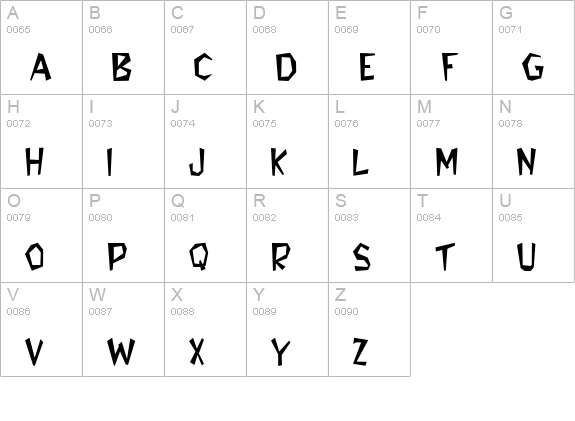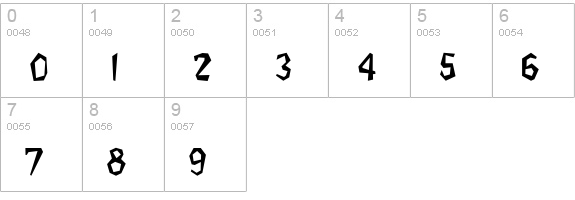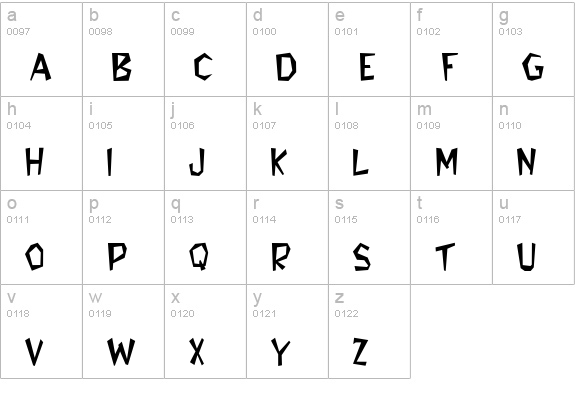
Flintstone Regular Font Details
Flintstone Regular is the standard, neutral variant in the Flintstone typeface family \xE2\x80\x94 well suited to general body text, paragraphs, and standard typographic work.
Flintstone Regular font is a charming and rustic typeface that exudes a sense of warmth and nostalgia. Inspired by the iconic stone age family, this font brings a playful and quirky touch to any design project. With its bold strokes and unique character shapes, Flintstone Regular is perfect for adding a touch of whimsy to your creations. The best part? Flintstone Regular font is completely free to download at FontsMarket.com. Whether you're working on a fun poster, a children's book, or a retro-inspired logo, this font is sure to bring a smile to your audience's faces. Embrace the prehistoric charm of Flintstone Regular and let your creativity run wild!